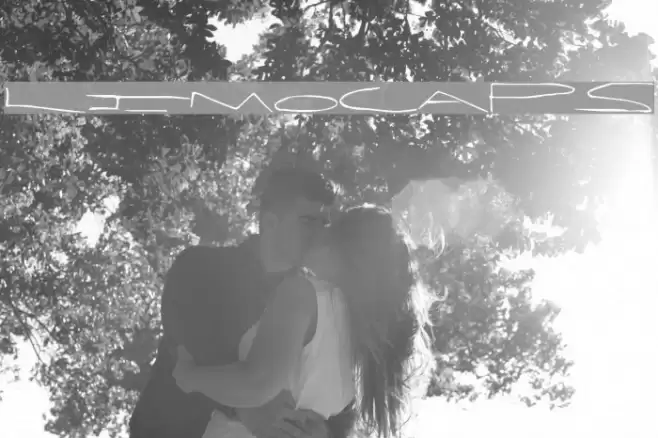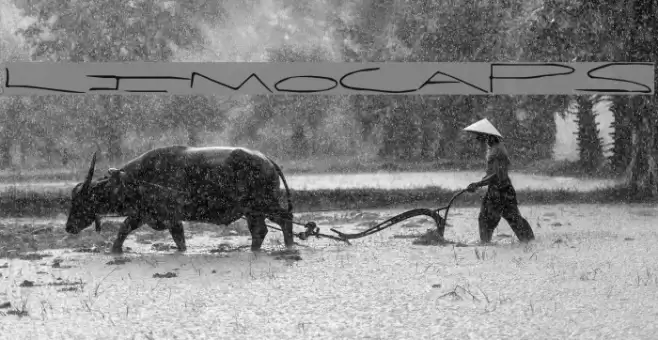
LimoCaps Font
LimoCaps Description
This font features a unique, elongated design with a modern and artistic flair. The characters are thin and stretched, giving them a sleek and sophisticated appearance. The uppercase and lowercase letters maintain a consistent style, with sharp angles and smooth curves that create a dynamic flow. The numbers follow the same elongated style, adding to the font's cohesive look. The special characters are represented by question marks, suggesting a playful and mysterious element. Overall, this font is ideal for projects that require a distinctive and contemporary touch.
A modern, elongated font with a sleek and artistic design from Uncategorized fonts.
- Proposed Projects: Ideal for modern art projects, fashion branding, and creative advertising campaigns.
- Weight: Light
- Width: Expanded
- Character Spacing: Wide
- Use Case: Logos, Headlines, Artistic projects